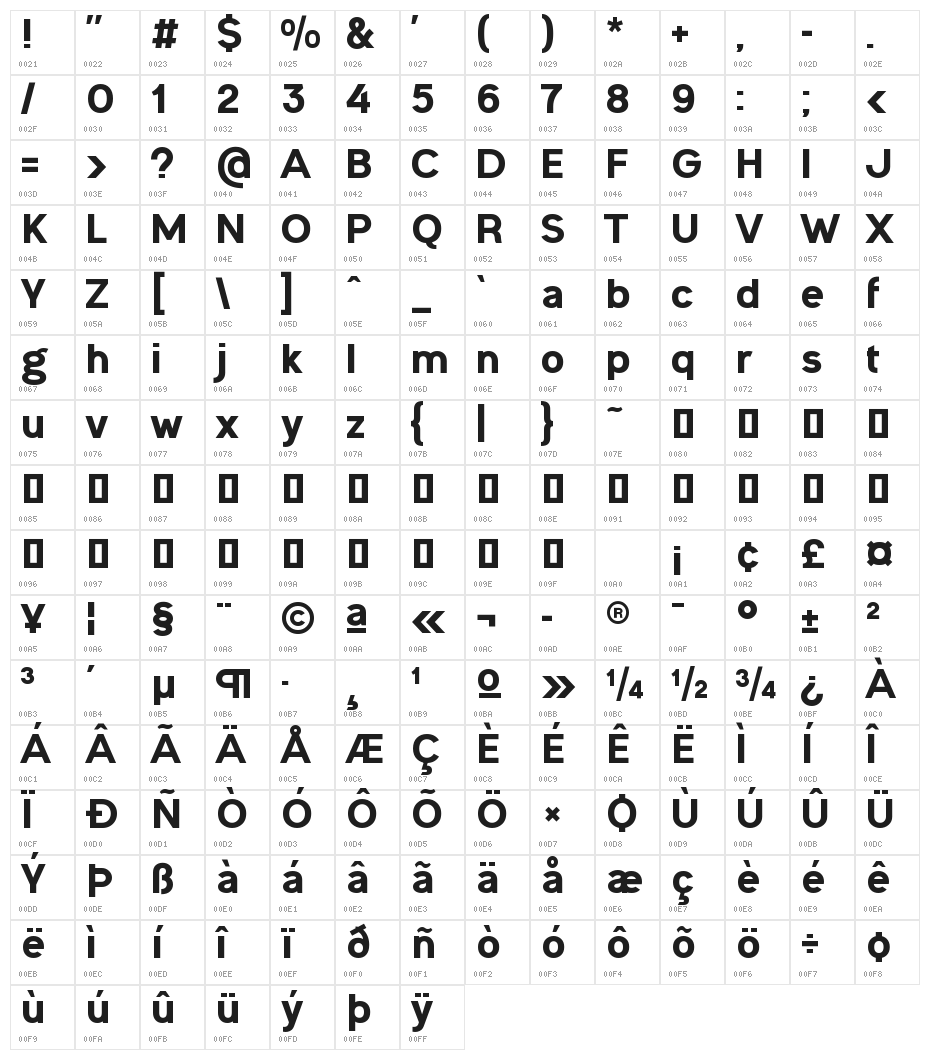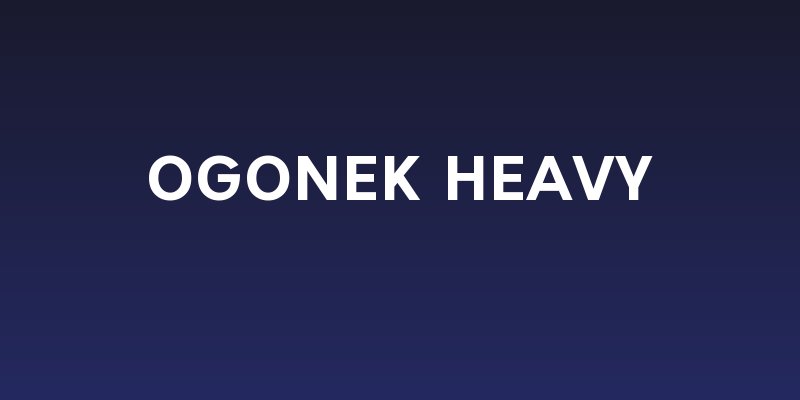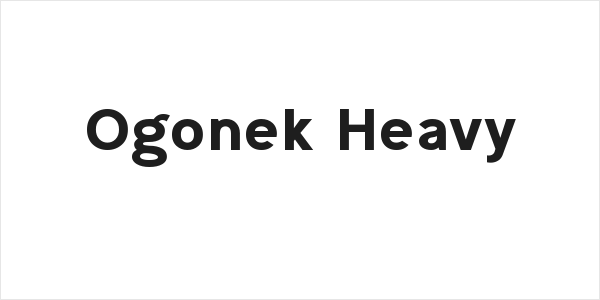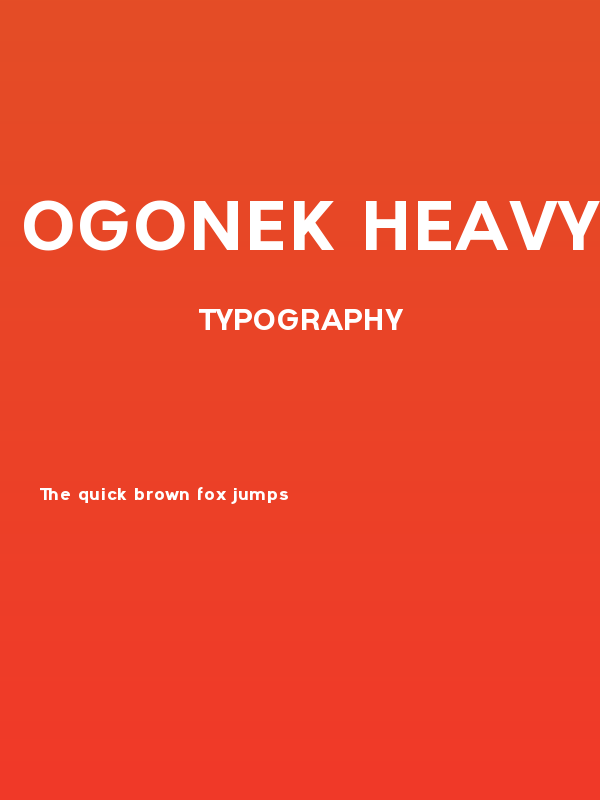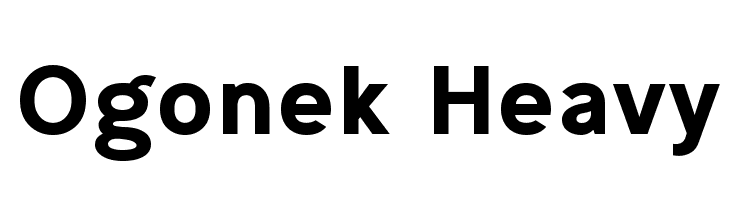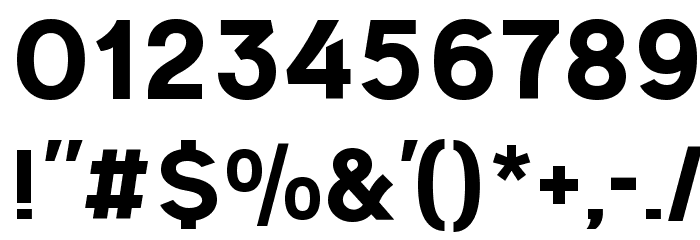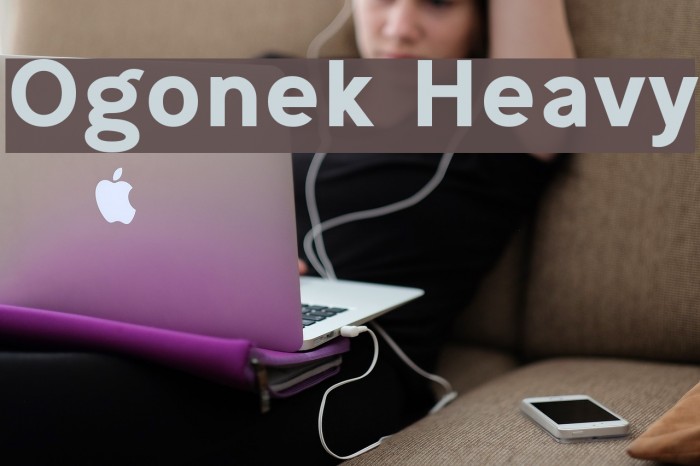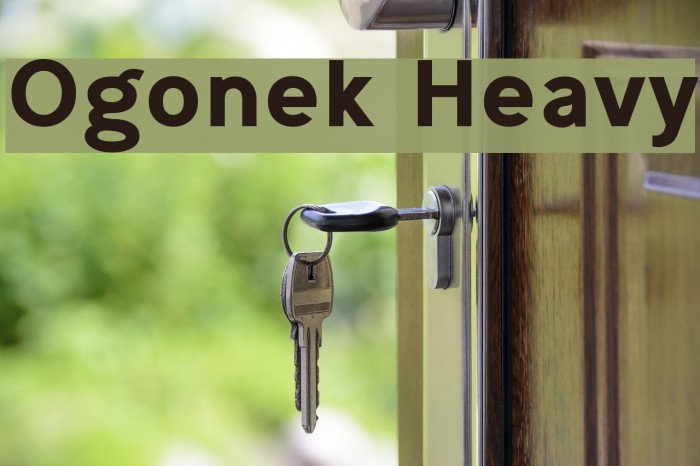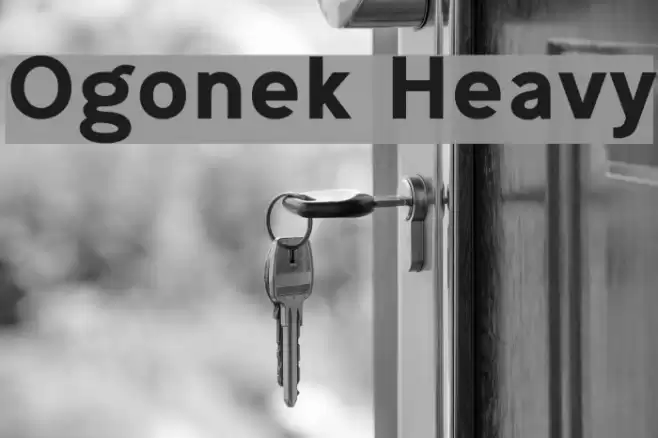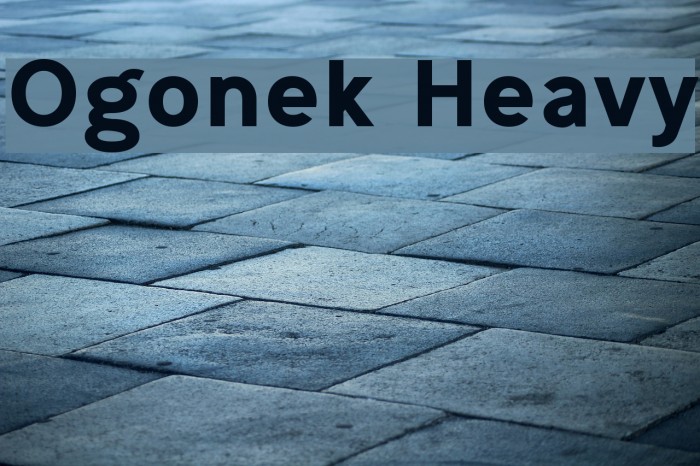
Ogonek Heavy Font
Ogonek Heavy Description
This font features a bold and assertive style, characterized by thick strokes and a strong presence. The uppercase letters are uniform in height, providing a sense of stability and balance. The lowercase characters maintain a consistent weight, ensuring readability while conveying a modern aesthetic. The numerals are clear and straightforward, matching the overall boldness of the alphabet. Special characters are well-integrated, maintaining the font's cohesive appearance. This font's design is ideal for making a strong visual impact, with its heavy weight and clear structure.
| Proposed Projects | Ideal for headlines, posters, branding, and any project requiring a strong, bold typeface. |